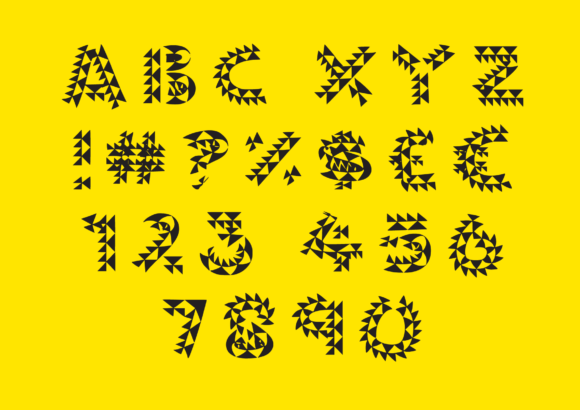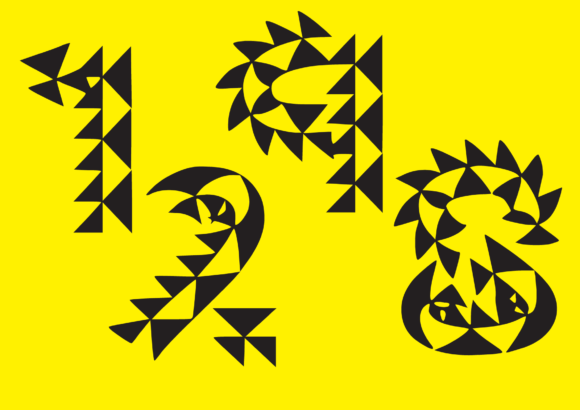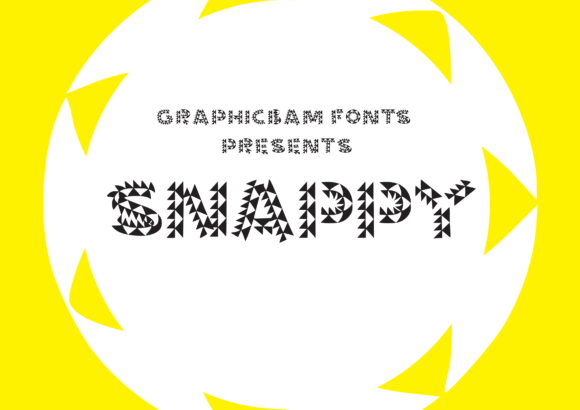
Introduction to Snappy Font
Snappy is a trendy and fun looking display font.
It will fit perfectly on each of your designs Have fun with this beautiful font and explore its endless variations.
Key Features of Snappy Font
Why Choose Snappy Font?